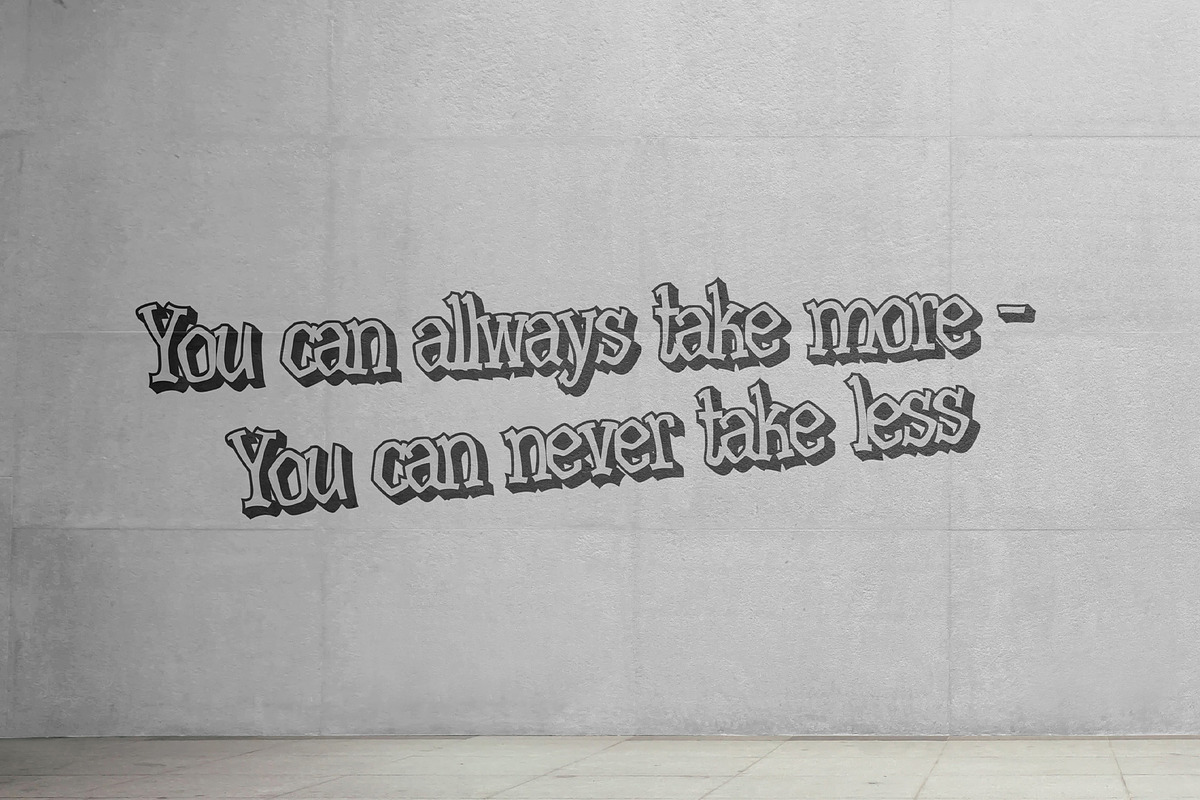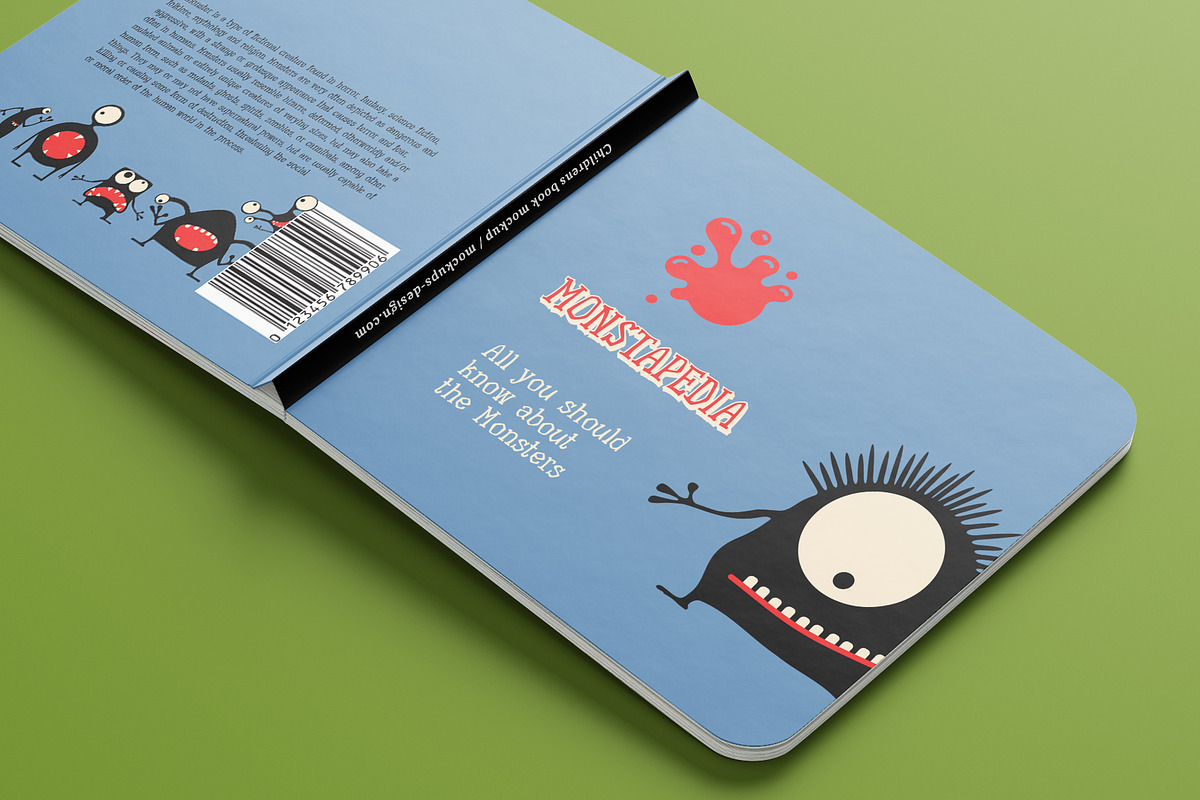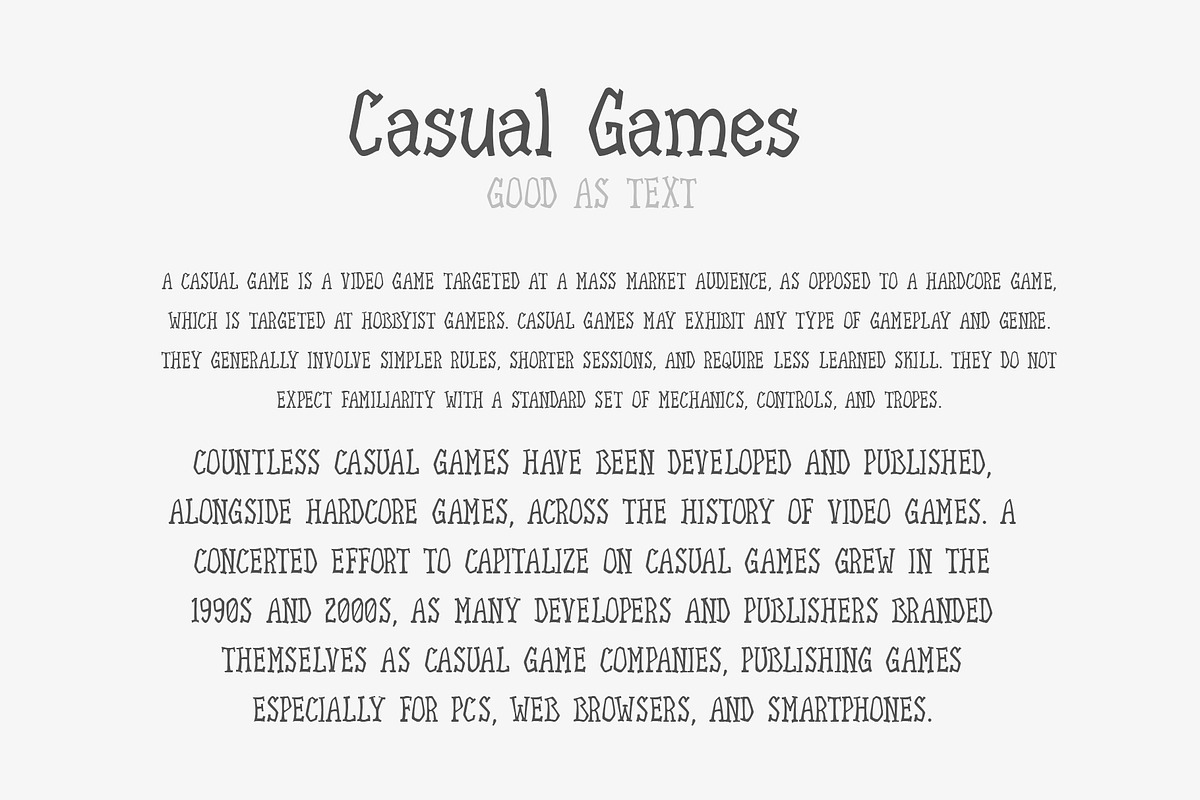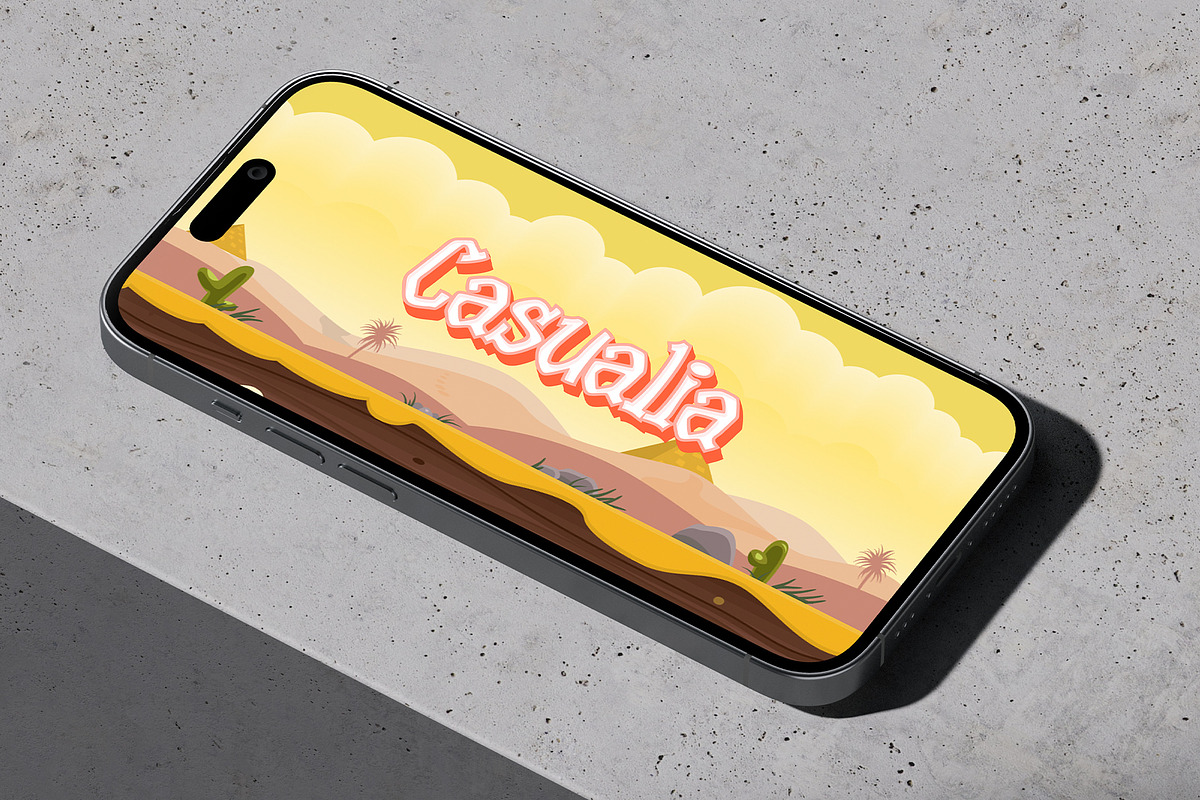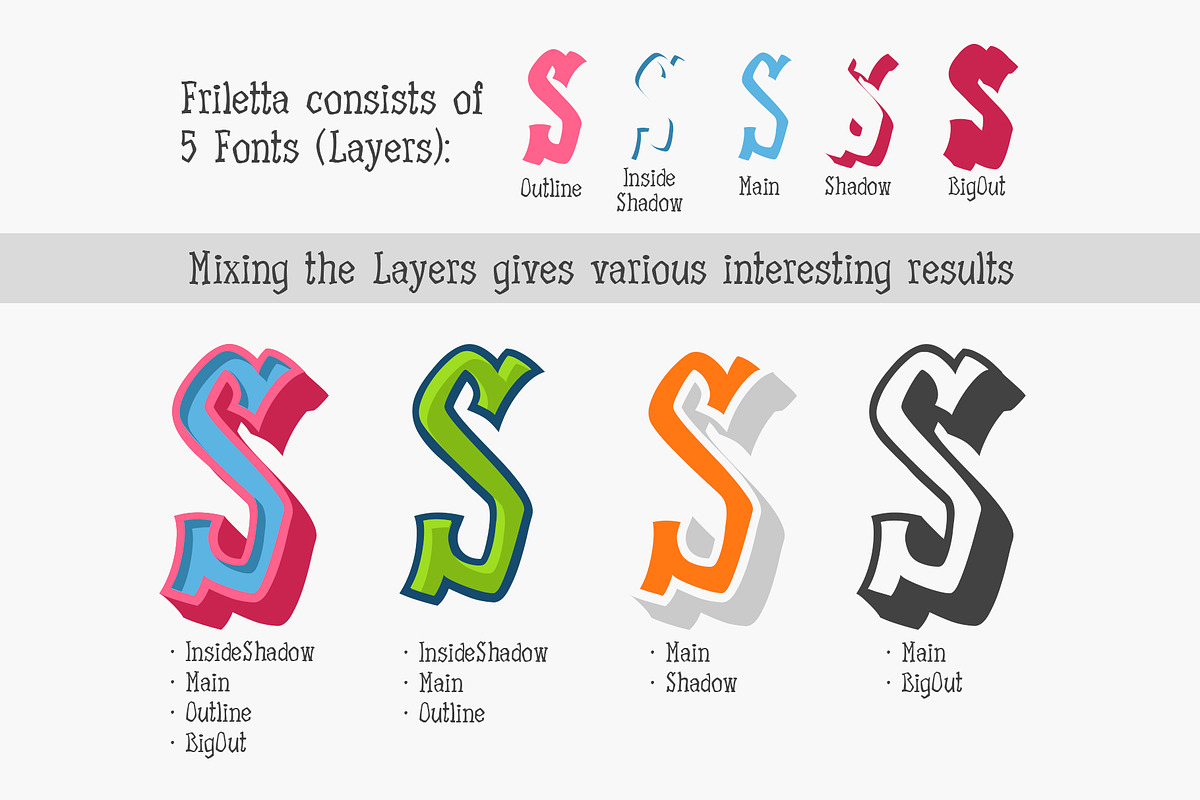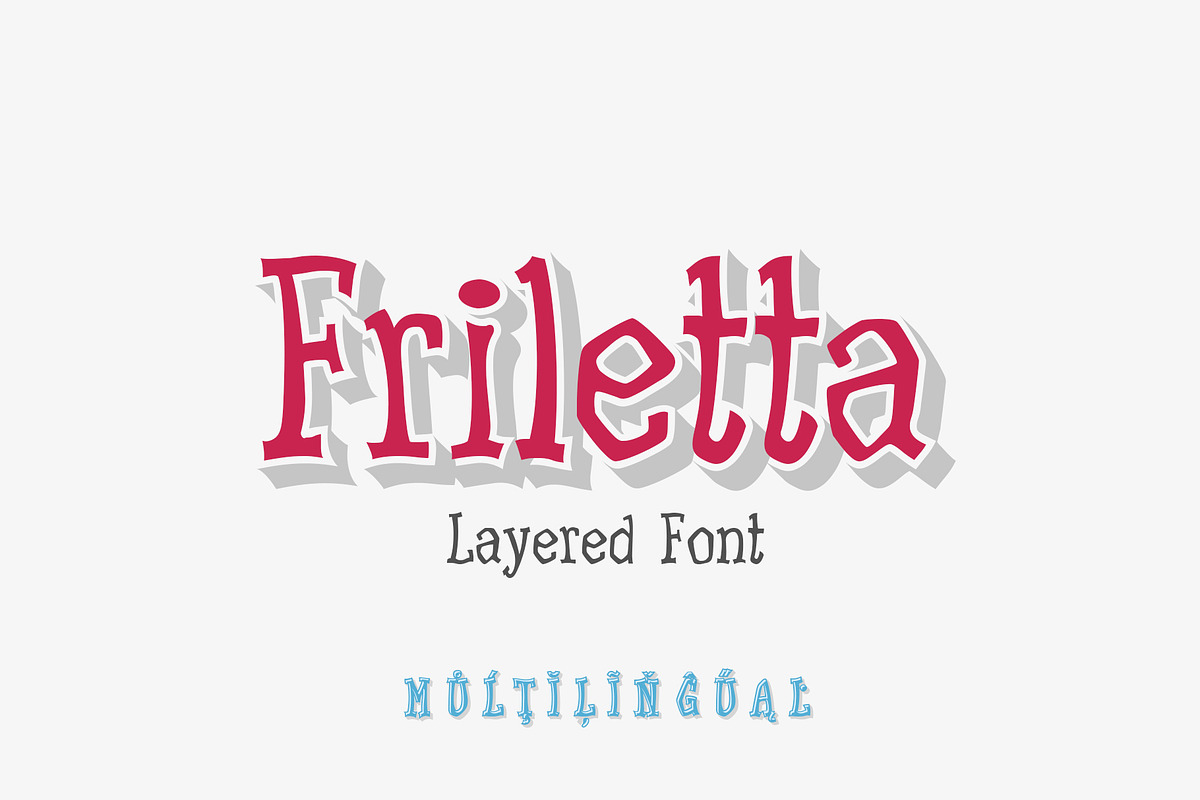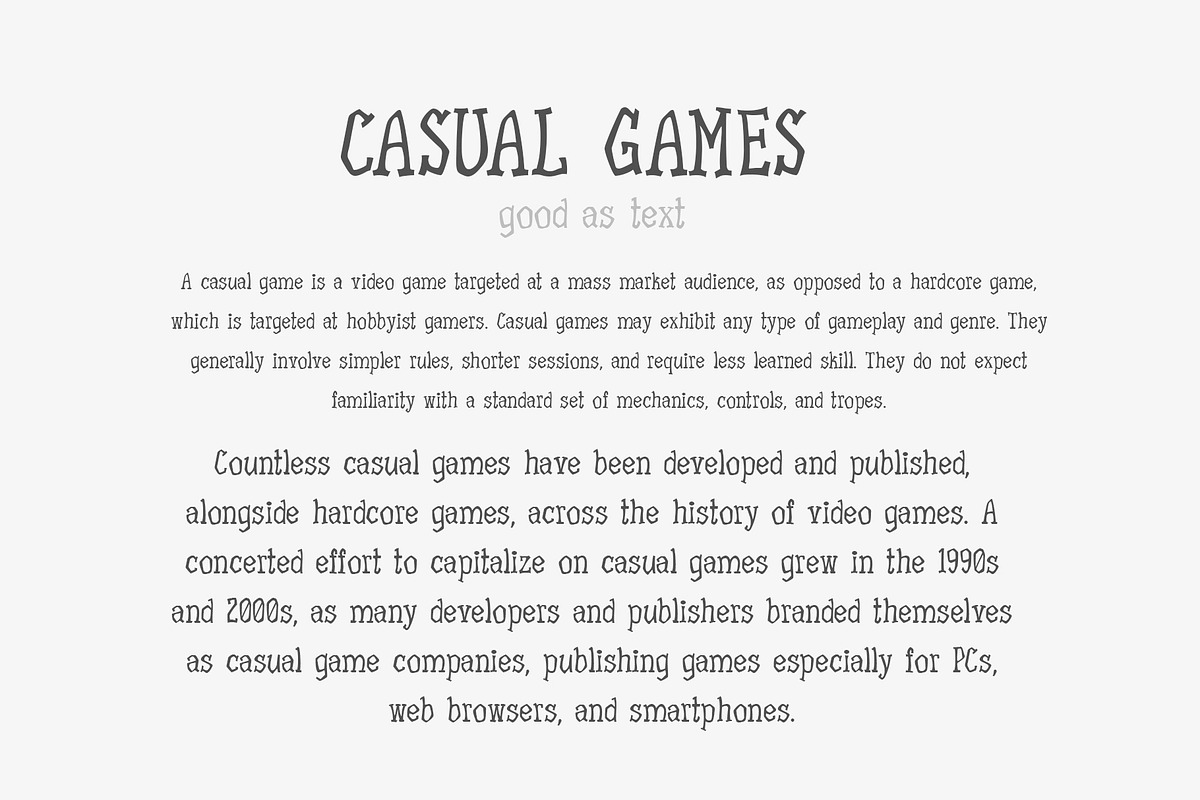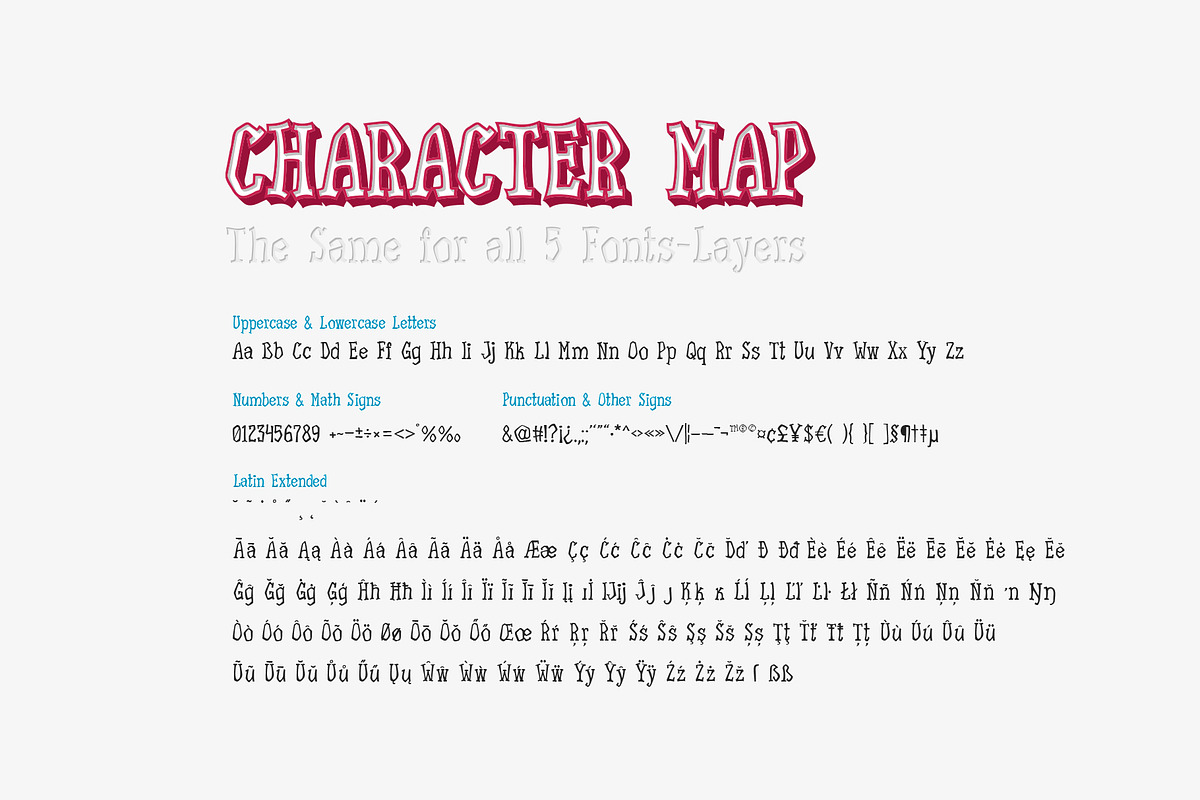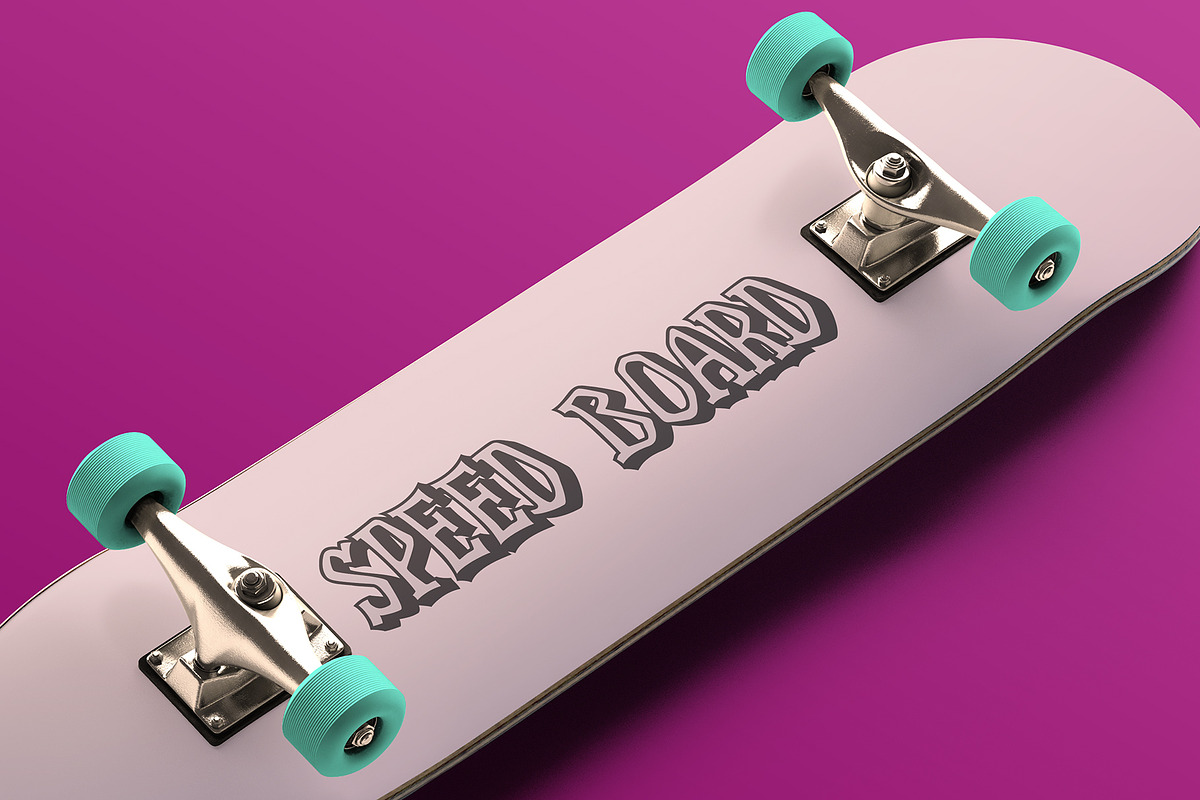
Friletta
Friletta is friendly graffiti style layered font (5 font-layers) designed for such areas as Games, Kids, Prints, Food etc. You may combine these layers to make new and interesting font combinations.